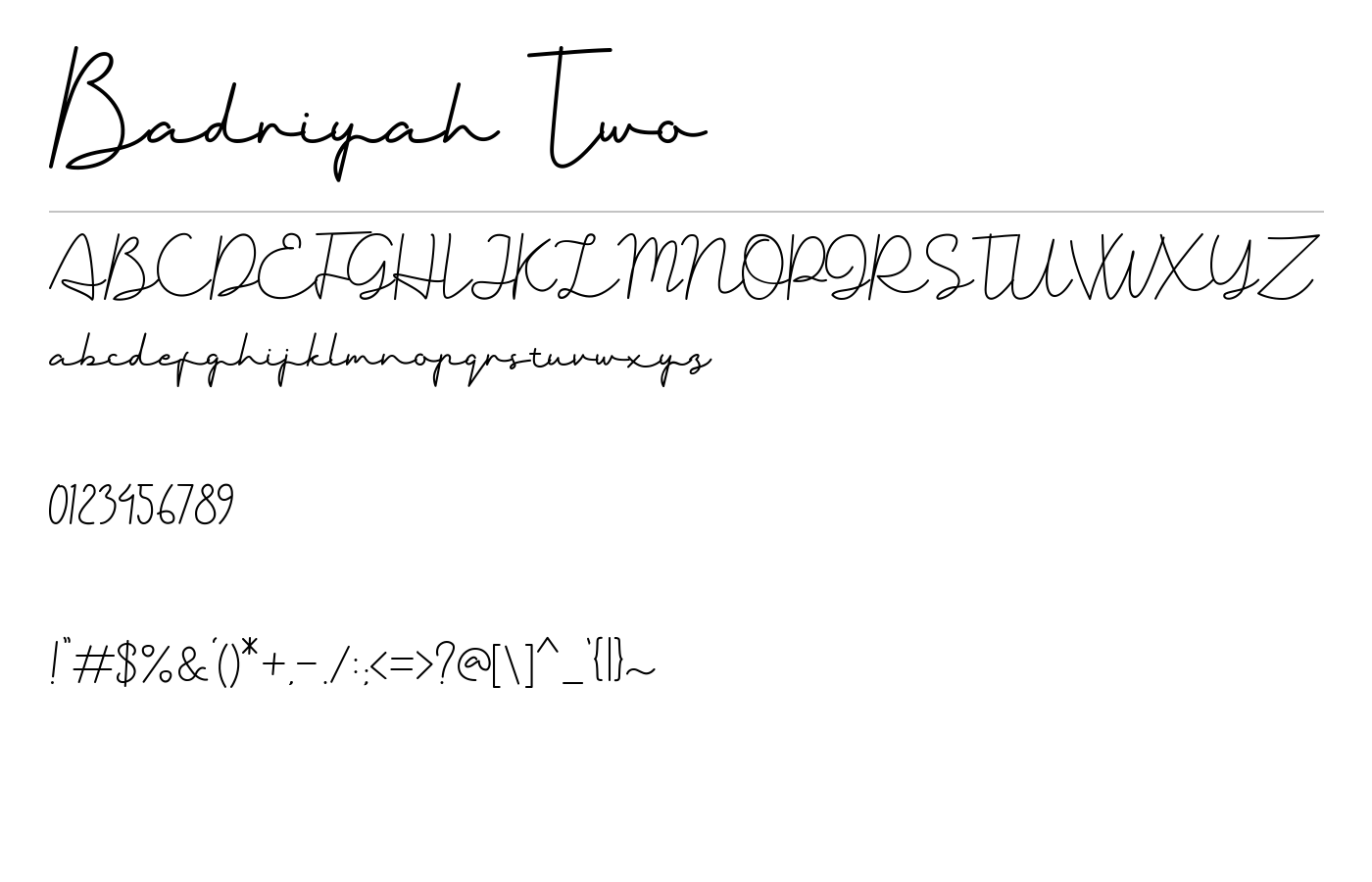
Badriyah Two is a delicate, modern script font characterized by its thin, flowing lines and airy, hand-drawn style. With its elegant and casual feel, it works beautifully for branding, invitations, and editorial projects that seek a personal, approachable touch. This font shines in creative contexts where a light, graceful handwritten look is desired.
Badriyah Two Font
About Badriyah Two Font
| Font family | Badriyah Two Font |